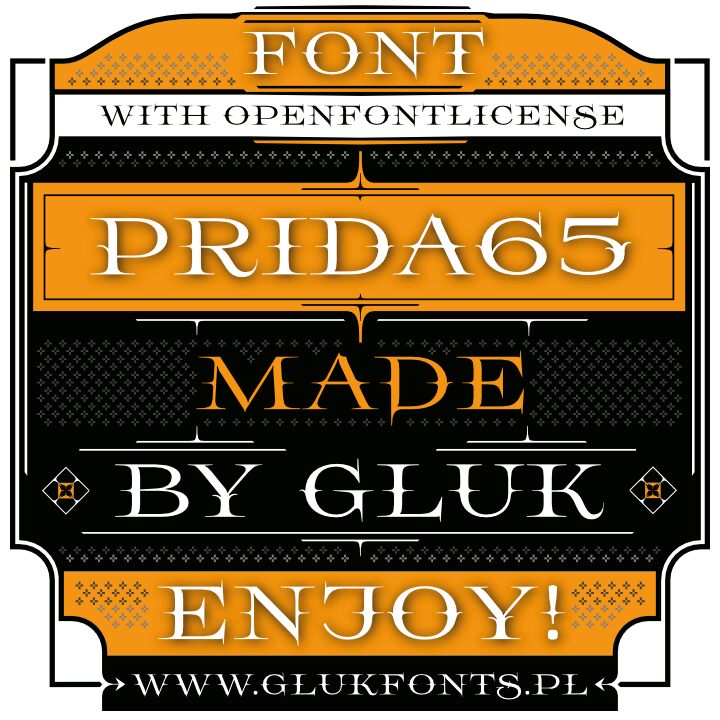
Prida 65 is a captivating display font that exudes a delightful retro flair. Designed by the talented Gluk, this expanded typeface boasts an alluring vintage aesthetic, with its graceful curves and elegant serifs effortlessly capturing the essence of a bygone era.
The font's distinctive character shines through in its striking letterforms, which seamlessly blend modern sensibilities with a timeless charm. Prida 65 showcases remarkable versatility, lending itself beautifully to a wide range of design applications, from eye-catching headlines and impactful branding to nostalgic product packaging and vintage-inspired editorial layouts. Its unique visual personality is sure to captivate and inspire designers seeking to evoke a sense of nostalgia and timelessness in their creative endeavors.
Prida65